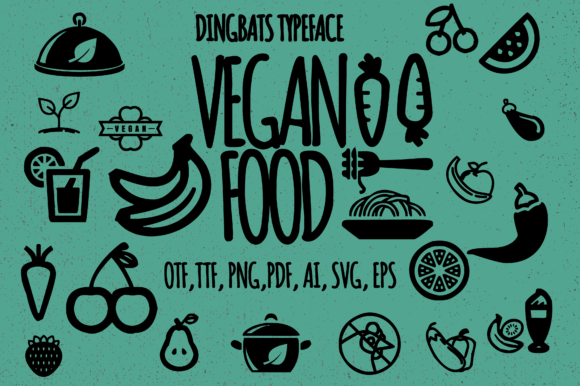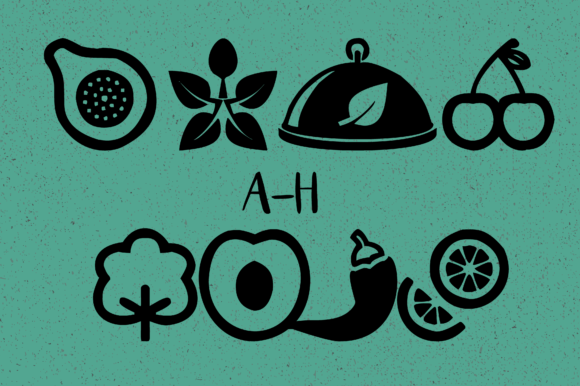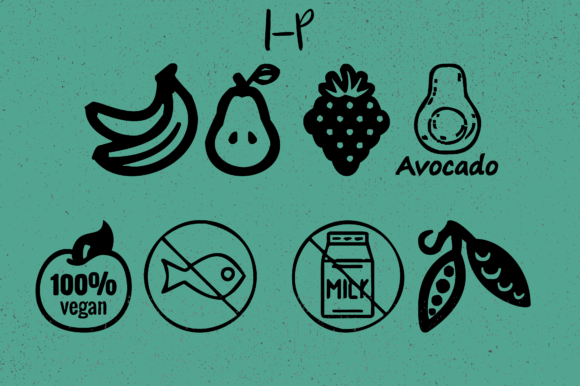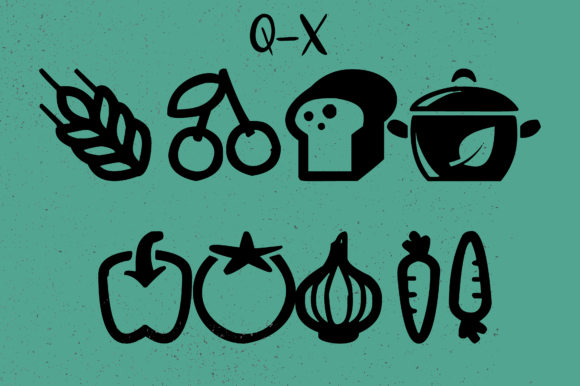
Vegan Font
About Vegan Font
Vegan is a unique and creative dingbats font that can be used to create vegan-related designs. Each of the symbols is designed to represent aspects of vegan lifestyle, such as vegan food, vegan fashion, vegan activism, or vegan travel. With its simple and intuitive interface,it’s easy to create a variety of different expressions, ranging from happy to surprised.
The versatility of Vegan is what makes it perfect for creating a vegan-related design. Whether you’re looking to create a vegan-themed logo, a card, or any other visual element, Vegan is an incredible asset to your fonts’ library. Even if you’re a non-vegan, Vegan can be a great choice for creating a vegan-themed design, or to support the vegan community.
One of the best things about Vegan is how easy it is to use. The font is designed to be user-friendly and easy to customize, making it a versatile tool to convey any kind of message you want. Whether you’re looking to create a logo, a card, or any other visual element, this font is sure to create a stunning and original design to your project.
If you’re looking for a font that will bring a vegan touch to your design, Vegan is the perfect choice. With its unique and captivating design, it’s sure to create a stunning and eye-catching design to any vegan-related project. Whether you’re a vegan activist, vegan travel enthusiast, or simply want to support the vegan community, Vegan is an incredible asset to your fonts’ library and has the potential to elevate any vegan-related project.